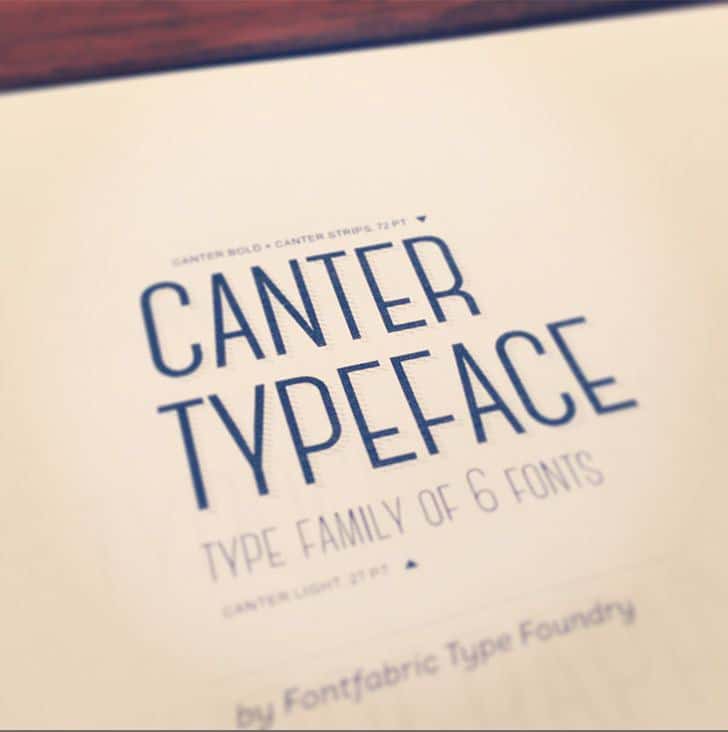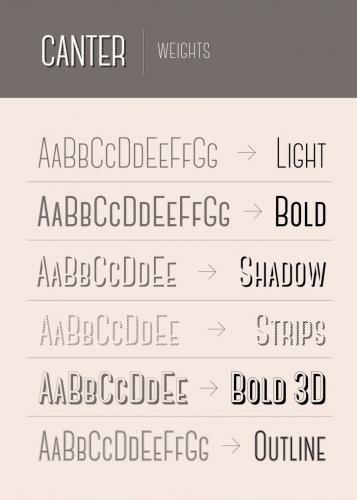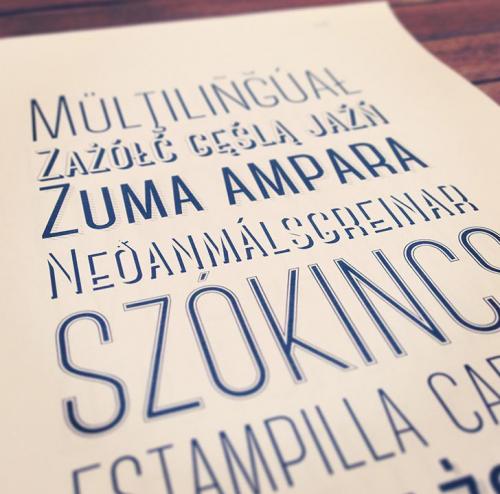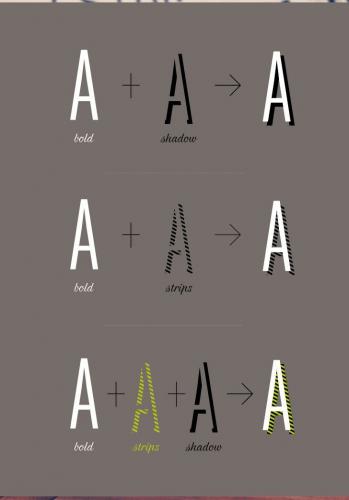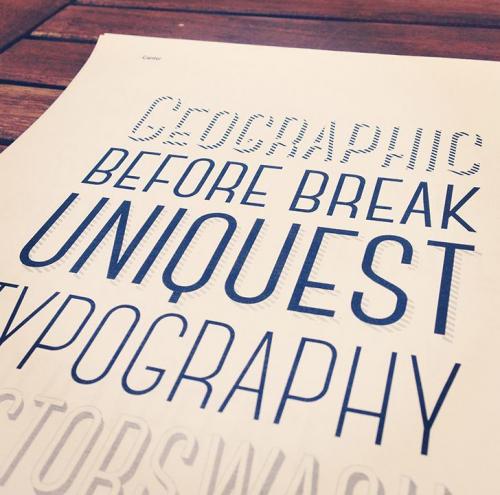
Fontfabric type foundry presents Canter – contemporary free font!
Canter is an all caps, condensed typeface available in six different weights. It was designed as a display type for titles, headlines, and posters.
Designed by Christopher J. Lee, New York, USA.